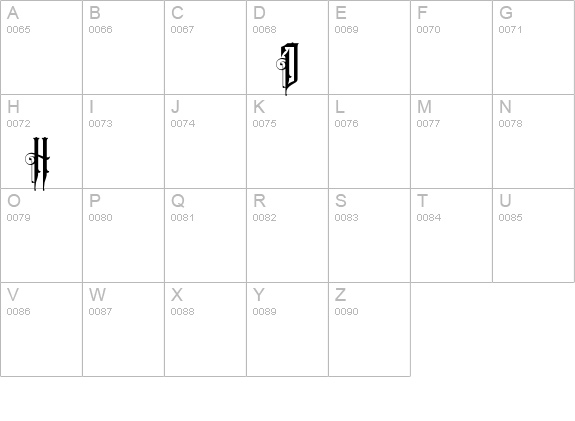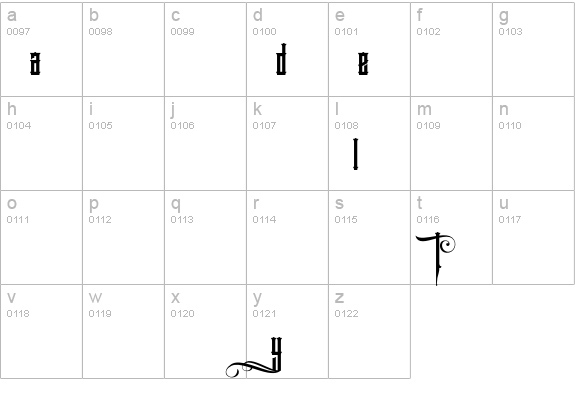
Introducing Deadly Heat font, a stunning and intense typeface that is sure to ignite your designs with its fiery presence. This font exudes a sense of danger and power, perfect for projects that need a bold and impactful touch. Its sharp edges and sleek curves create an electrifying visual experience that will leave a lasting impression on anyone who lays eyes on it. Deadly Heat font captures the essence of scorching heat and burning passion, making it ideal for projects that require a touch of intensity. Whether you're designing a movie poster for a thrilling action film or creating a logo for a high-energy sports brand, this font will bring your ideas to life with its captivating and dynamic appearance. But what's even better is that Deadly Heat font is available for free! Yes, you read that right. This incredible font can be freely downloaded at FontsMarket.com, allowing you to enhance your designs without breaking the bank. We believe that creativity should be accessible to all, and with Deadly Heat font, you can now add a touch of fiery brilliance to your projects without any cost. Don't miss out on this opportunity to elevate your designs with the power and intensity of Deadly Heat font. Download it now for free at FontsMarket.com and let your creativity blaze with its sizzling hot presence.